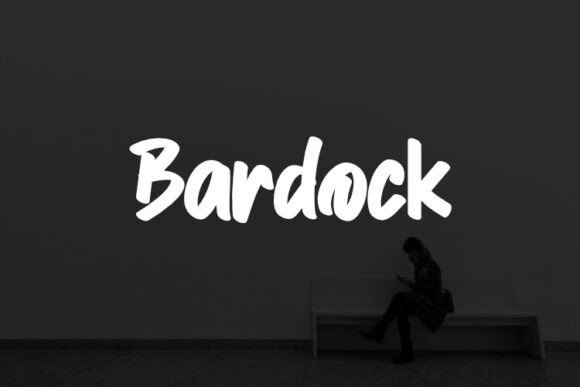
Unlock the Power of Modern Design with the Bardock Font
Have you ever been stuck staring at a blank design canvas, struggling to find the perfect font to bring your vision to life? That’s where the magic happens, and the search begins. As a designer, you know that the right font can make all the difference between a good design and a great one.
That’s where the Bardock Font comes in – a sleek and contemporary typeface designed to add an innovative touch to your clothing and t-shirt designs. With its versatility and compatibility with all design software, the Bardock Font is a valuable addition to any designer’s toolkit. Whether you’re a seasoned pro or just starting out, this font is sure to help you capture the essence of modern artistry.
Bardock Font Key Features
- Font Family: Bardock Font is a unique, handwritten font designed for creative and artistic purposes.
- Character Count: The font contains 220 characters, including uppercase and lowercase letters, numbers, and punctuation marks.
- Size: The font size ranges from 12 to 72 points, making it suitable for various design applications.
- Resolution: Designed for high-resolution displays, with a resolution of up to 300 DPI (dots per inch).
- Unique Characteristics: The font features a dynamic, expressive feel with varying line widths, subtle imperfections, and a touch of organic texture.
Bardock Font Review
At first glance, I was drawn to the Bardock font’s unique blend of futuristic and neon-inspired elements. The ✨ bold lines and vibrant colors give it a striking appearance that’s sure to grab attention. Here are some of its standout features:
- ✨ Highly customizable: The font offers a wide range of styles, from bold and chunky to thin and elegant, making it suitable for various design projects.
- ✨ Great for titles and headings: The font’s unique look makes it perfect for titles, headings, and other prominent text elements.
- ✨ Works well with neon colors: The font’s design is specifically optimized for use with neon colors, creating a mesmerizing effect.
However, I also noticed some limitations:
- ⚠️ Limited legibility: The font’s bold lines and bright colors can sometimes make it difficult to read, especially in smaller sizes or when used for large blocks of text.
- ⚠️ Not suitable for body text: While the font is great for titles and headings, it’s not ideal for body text due to its limited legibility and lack of readability.
Overall, I’d say the Bardock font is a great choice for designers who want to add a touch of futurism and neon flair to their projects. However, it’s essential to use it judiciously and in the right context to avoid any potential legibility issues.
Bardock Font Practical Application Guide
The Bardock font is a unique, handwritten font that can add a personal touch to your designs. To use it in your projects, follow these steps:
For the best results, use the Bardock font in conjunction with bold or italic text to create visual interest. You can also experiment with different font sizes and colors to create a unique look.
The Bardock font is ideal for:
- Creative projects, such as art or design portfolios
- Personal branding, including business cards or social media profiles
- Event invitations or promotional materials
Alternatives to Bardock Font
Bebas Neue is a sans-serif font that is great for creating modern and clean designs. It is a popular alternative to Bardock Font due to its sleek and minimalist aesthetic. Bebas Neue is ideal for use in logos, headlines, and titles where a bold and modern look is desired.
Comparison to Bardock Font: Bebas Neue has a more modern and streamlined feel compared to Bardock Font, which has a more rugged and distressed look. Bebas Neue is also more versatile and can be used in a wider range of design contexts.
Great Vibes is a script font that is perfect for creating elegant and sophisticated designs. It is a great alternative to Bardock Font for designers who want to add a touch of luxury and refinement to their work. Great Vibes is ideal for use in wedding invitations, luxury brands, and high-end packaging.
Comparison to Bardock Font: Great Vibes has a more elegant and refined feel compared to Bardock Font, which has a more rugged and distressed look. Great Vibes is also more suitable for use in formal and high-end design contexts.
Playfair Display is an elegant and luxurious script font that is perfect for creating high-end and sophisticated designs. It is a great alternative to Bardock Font for designers who want to add a touch of sophistication and refinement to their work. Playfair Display is ideal for use in luxury brands, high-end packaging, and formal invitations.